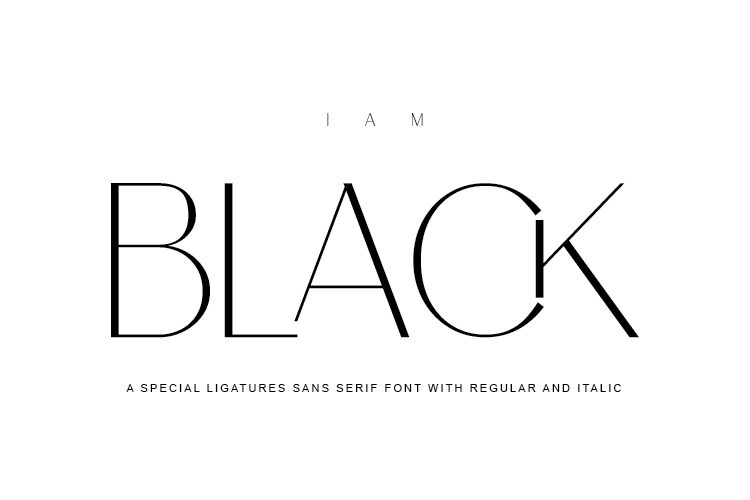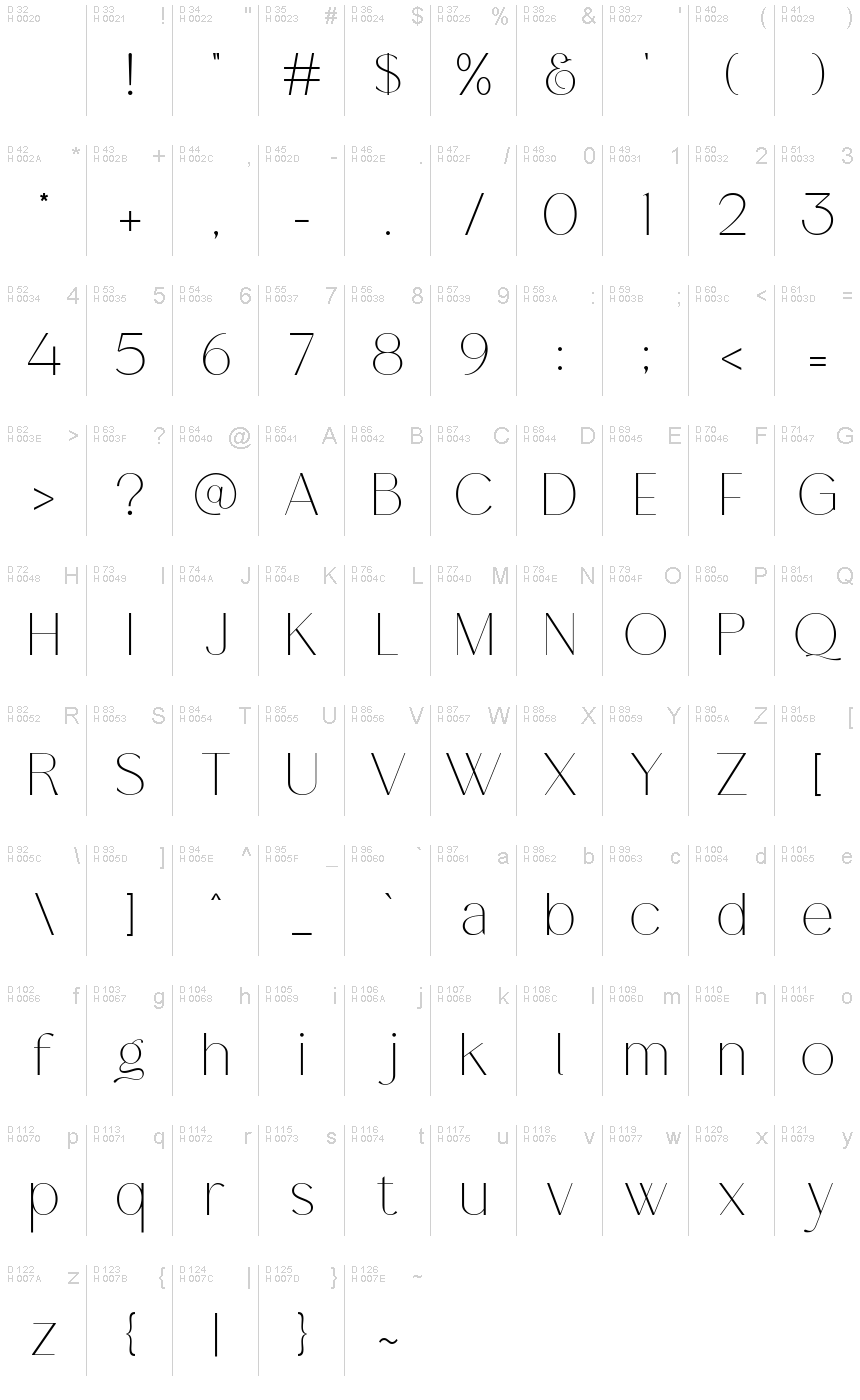
IAM BLACK
Iam Black, crafted by Rmdndsign, stands as a testament to modernity and sophistication. This sans serif font brings an air of elegance with its fine strokes, embodying a sense of lightness and clarity. It's the epitome of minimalistic design that speaks volumes with its simplicity.
The clean lines and uncluttered appearance make Iam Black versatile and visually pleasing. It is well-suited for a variety of applications—ideal for high-end branding, luxury product packaging, or any project that calls for a touch of sleekness without compromising on readability.
In essence, Iam Black is not just a typeface but an experience that elevates text with its understated yet powerful presence.